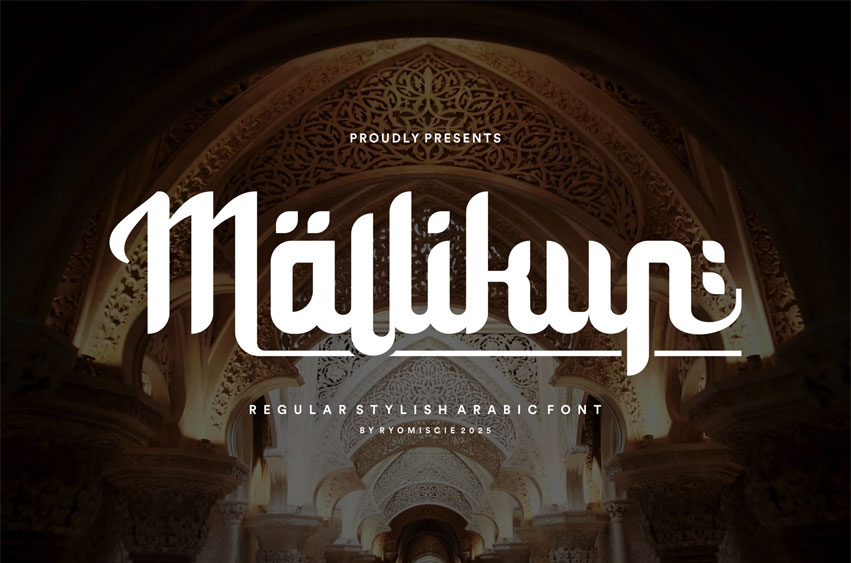
Mallikun Font
Mallikun Font Modern Font is a bold and authentic display font. The font is suitable for any branding project like logo,esport, and many more. outstanding in a wide range of contexts.